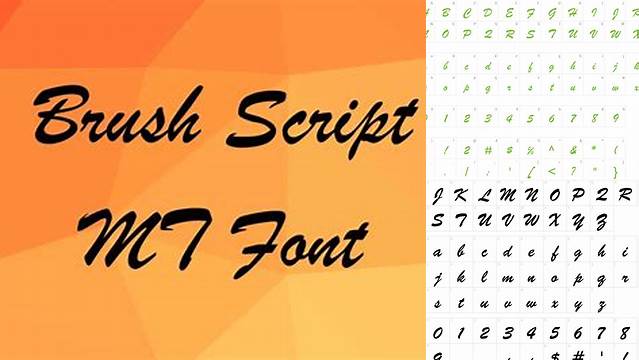
Hey everyone! Ever stumbled upon a font that just screams elegance and personality? Well, if you're nodding, then you've probably crossed paths with Brush Script MT. This beauty is a go-to for anyone looking to add a touch of sophistication and a handwritten feel to their projects. And guess what? You can get a Brush Script MT regular font free download! Let’s dive into everything you need to know to snag this awesome font and how to make the most of it. We will explore the ins and outs of the Brush Script MT regular font free download, from where to find it safely to all the cool ways you can use it. Get ready to amp up your designs, guys!
Brush Script MT: Your Gateway to Stylish Design
So, what's the big deal with Brush Script MT? Simple: it's a font that exudes charm and readability. Think of it as the digital version of a classic handwritten script, perfect for adding a personal touch to your work. Whether you're a seasoned designer or just starting out, this font is a versatile tool that can elevate your projects. Its flowing lines and slightly irregular strokes give it a natural, organic feel that’s hard to resist. Before we get into the nitty-gritty of a Brush Script MT regular font free download, let's talk about why you might even want to use this font. Are you crafting invitations? Brush Script MT can make them look more personal and professional at the same time. Maybe you're working on a logo? It's a brilliant choice to give a brand a touch of elegance and approachability. Or perhaps you’re designing social media graphics? Using this font can make your posts stand out from the crowd. The possibilities are truly endless. By the way, Brush Script MT regular font free download offers a great option for those who are running low on budget but still want a professional font to use for their personal and/or commercial work. Its adaptability makes it a winner. Its style is both friendly and refined, which makes it a great option for all kinds of designs. It blends a sense of creativity and elegance, making it a must-have for anyone hoping to make a statement in their designs.
The Allure of Handwritten Fonts
Handwritten fonts, like Brush Script MT, possess a unique appeal. They evoke a sense of authenticity and warmth that's often missing in more rigid, formal typefaces. This personal touch can make your design feel more approachable and engaging. People are naturally drawn to things that feel human-made, and handwritten fonts tap into that instinct. In a world dominated by digital everything, the subtle imperfections of a handwritten font can be a breath of fresh air. The slight variations in stroke thickness, the gentle curves, and the overall flow of the letters create a visual rhythm that's pleasing to the eye. This isn't just about aesthetics; it's about connection. Handwritten fonts make your audience feel like they're receiving a personal message, which can build trust and loyalty. When you're choosing a font, consider the message you want to convey. If you're aiming for creativity, warmth, and a touch of elegance, a handwritten font is an excellent choice. And guess what? Brush Script MT regular font free download can give you all of this without emptying your wallet. Its organic quality will make your work more appealing and easier to relate to. Remember, choosing the right font is a huge part of making your design successful!
Tips for Integrating the Font into Your Designs
Alright, you've got the font installed and ready to go! But how do you make it work for you? Let's get practical and discuss tips for integrating Brush Script MT into your designs effectively. Start by using it strategically. It's a great choice for headlines, titles, and short bursts of text where you want to make a statement. Try not to overuse it; too much can make your design look cluttered. Less is often more! Consider how it works with other fonts. Pair it with a clean, sans-serif font for body text to create a nice contrast. This will make your designs more readable and visually appealing. Always make sure your text is legible. Choose a font size and spacing that makes your text easy to read. While Brush Script MT is stylish, its readability can be affected by the size or the background you use. Experiment with color. The font looks great in various colors, but be careful about the contrast between the font and the background. This will make your text stand out. Play with different effects, like drop shadows or outlines, to add depth and visual interest. Remember, you got the Brush Script MT regular font free download, and that gives you a great tool. But the real magic happens when you combine your creativity with the font's unique character. Don't be afraid to try new things. Play around with combinations and styles until you find what suits your project. Practice makes perfect. The more you use the font, the better you'll become at incorporating it into your designs.
Brush Script MT Font in Action: Project Ideas
Want some inspiration? Let's explore some cool ways you can use Brush Script MT in your projects. If you're into invitations, this font is perfect for weddings, birthday parties, or any special event where you want to convey a sense of elegance and personalization. Use it to create beautiful, eye-catching headlines and names. It also is great for logos. If you are building a brand, Brush Script MT can be a great choice for your brand identity. The font is perfect for creating logos that look approachable, elegant, and memorable. Consider using it for the logo of a boutique, a bakery, or a creative business. Also, if you like social media, using Brush Script MT on your social media graphics can help you stand out. It can make your posts pop, attracting attention and making your brand more memorable. It’s perfect for quotes, announcements, and other text-based posts. Have fun with this font! Use the Brush Script MT regular font free download to enhance your graphic design projects and see how the font transforms your work. So, play with it and bring your vision to life! Be creative and have fun.
Designing Wedding Invitations
Wedding invitations are a classic application for Brush Script MT. The font’s elegant and romantic style fits perfectly with the celebratory mood of a wedding. When designing invitations, use the font for the couple's names, the date, and other important details. To make the invitation even more special, pair the font with other fonts to balance the design and make it readable. Consider using a simple serif font for the body text. Experiment with colors. Soft pastels, like blush pink or pale blue, work well with the font. You can also use metallic colors like gold or silver for a touch of luxury. The Brush Script MT regular font free download can make it affordable without compromising on design quality. Don't be afraid to add decorative elements, such as floral illustrations or elegant borders, to complement the font. Make sure the invitation reflects the couple’s style and personality. Before you finalize the design, make a test print to check how everything looks on paper. This will help you catch any potential issues, like size or color problems. When everything looks perfect, you'll have a beautiful invitation that will impress your guests and set the tone for the big day. This is all possible with Brush Script MT regular font free download, giving you the option to create something beautiful without breaking the bank.
Creating Eye-Catching Logos
Conclusion: Embrace the Brush Script MT Experience
So there you have it! We've covered everything from how to get your Brush Script MT regular font free download safely to how to use it effectively in your designs. Remember to always download from reliable sources, read the license agreements, and respect copyright laws. Brush Script MT is a fantastic font that can add a touch of elegance and creativity to your projects. It’s perfect for those moments when you want to add a personal touch to your work. So go ahead, download Brush Script MT, experiment with it, and have fun creating stunning designs. Let this font spark your creativity! With this font, you have the ability to elevate your work and boost your design projects to new heights. It’s all about having fun, getting creative, and making your designs stand out. Embrace the Brush Script MT regular font free download and let your designs shine!